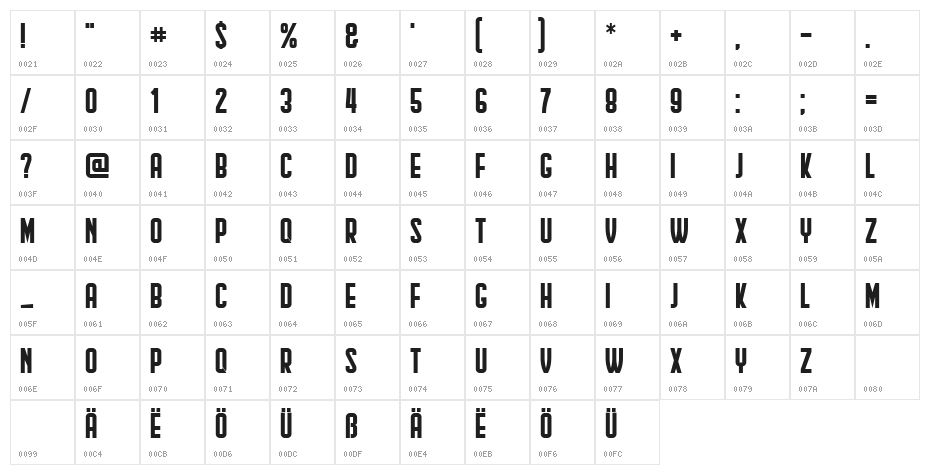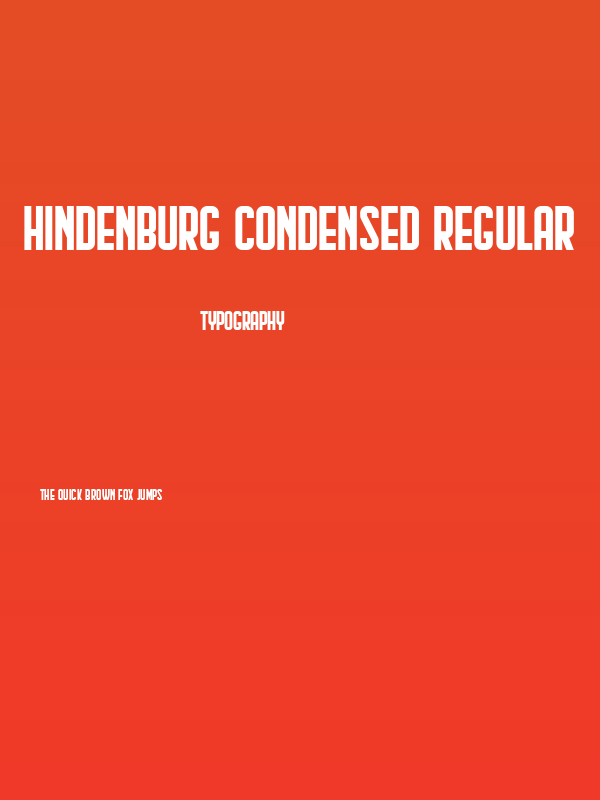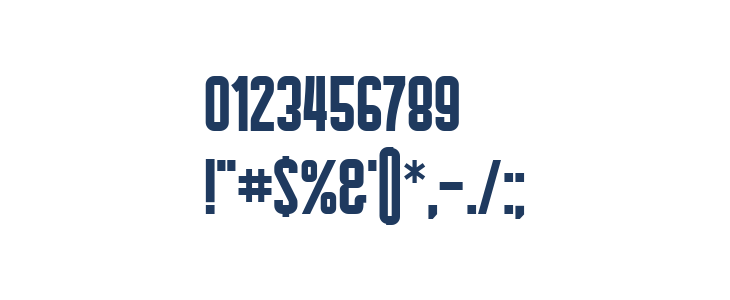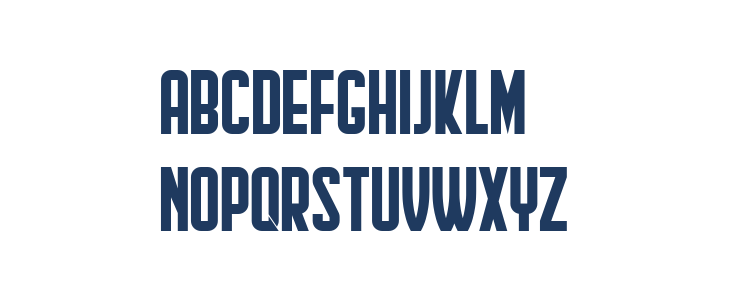
Hindenburg Condensed Regular Font
Hindenburg Condensed Regular Description
This font features a bold and condensed style with strong geometric shapes and clean lines. The uppercase letters are uniform in height, creating a cohesive and structured appearance. The numerals are equally bold, maintaining the font's overall impact. Special characters are designed to match the assertive style, ensuring consistency across all glyphs. The font's condensed nature allows for efficient use of space, making it ideal for headlines and titles where impact is essential. Its modern and assertive design makes it suitable for projects that require a strong visual presence.
| Proposed Projects | Perfect for branding, advertising, posters, and any design requiring a strong, modern look. |